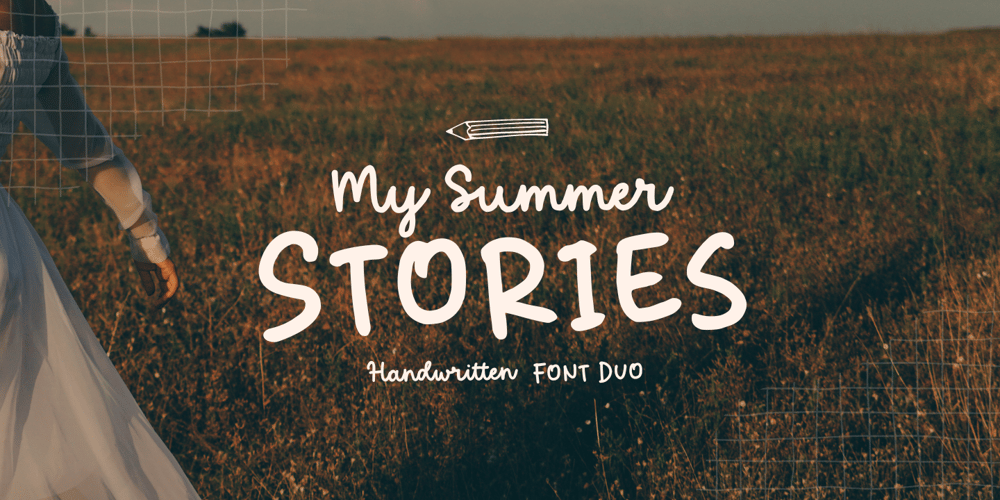
My Summer Stories Script Font Family was designed by Muhamad Yusron Billah and published by Sronstudio. My Summer Stories Script contains 2 styles and family package options. Introducing “My Summer Stories,” a delightful font duo that captures the essence of fun and natural handwritten script. Perfect for adding a playful and personal touch to your designs, “My Summer Stories” brings warmth and charm to any project.Features:– Font Duo: Handwritten & Script– Numeral & Punctuation– PUA Encoded– Multilingual support– Simple Installation– Work both on Mac and WindowsThank you very much 🙂